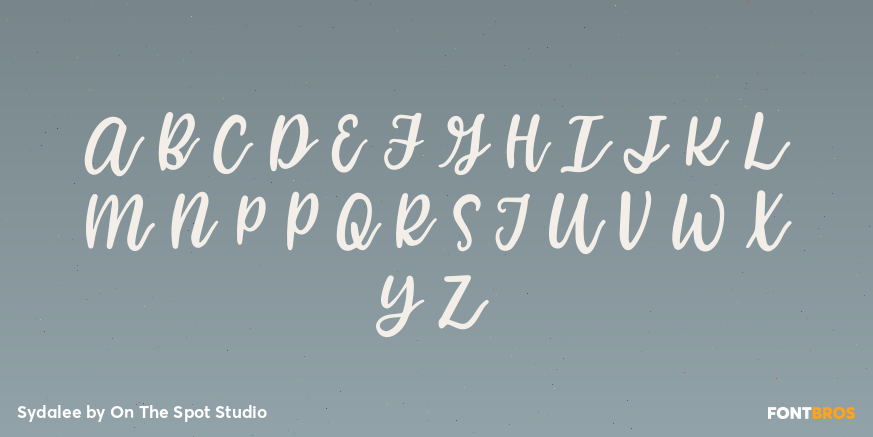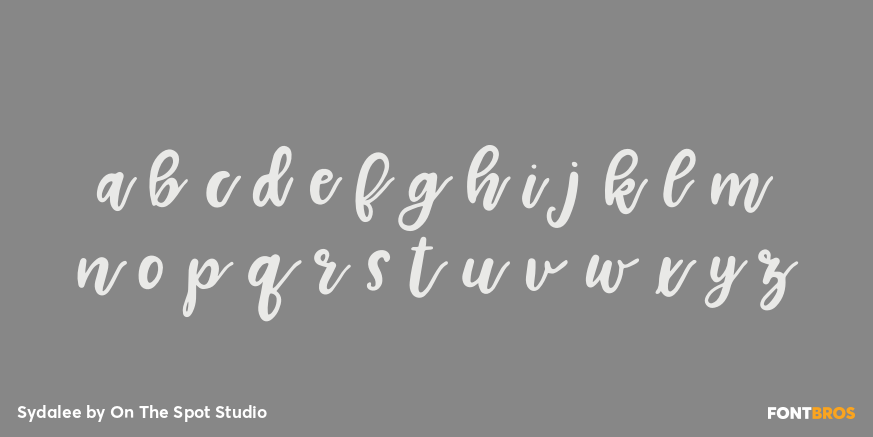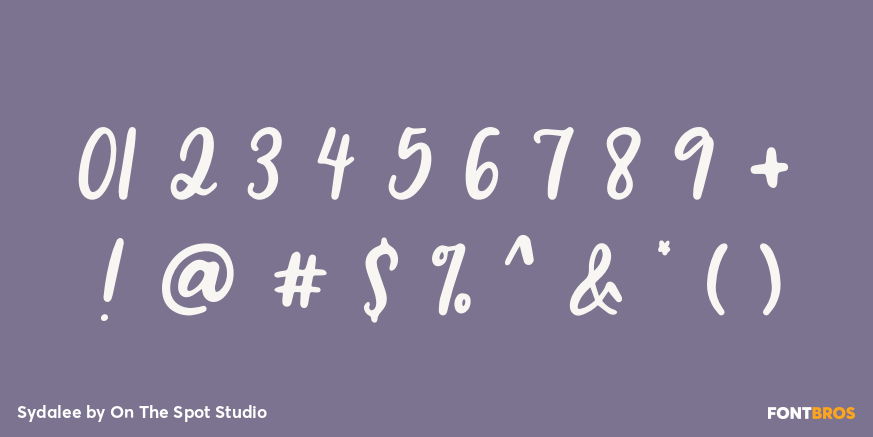
Sydalee
Font Family by On The Spot Studio
Sydalee is a brand new script font from On The Spot Studio Perfect for Logos, Branding, Crafting, Prints & More!